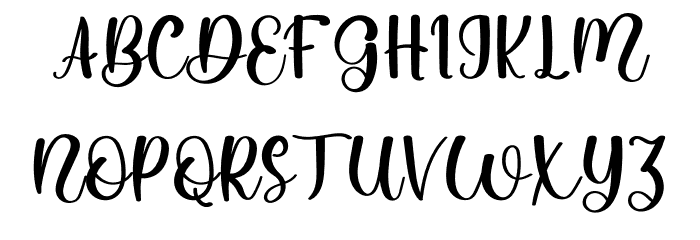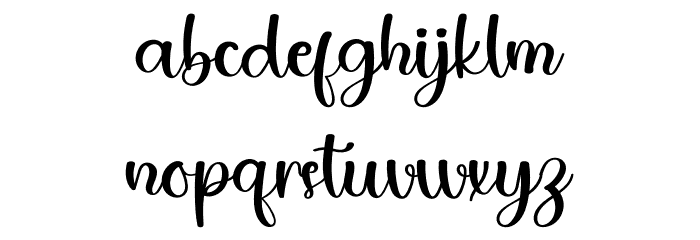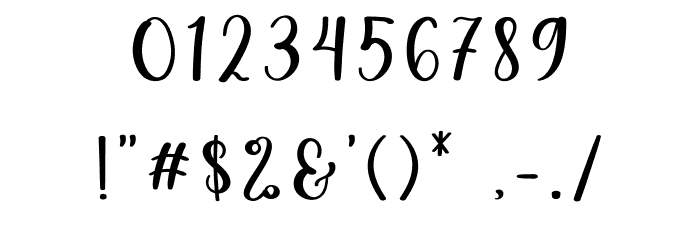
Berry Font
This font features a playful and elegant script style with smooth, flowing curves and a handwritten appearance. The uppercase letters are bold and expressive, while the lowercase letters maintain a consistent, fluid motion. The numerals are clear and easy to read, complementing the overall aesthetic. Special characters are integrated seamlessly, adding versatility to the font. The design is both modern and timeless, making it suitable for a variety of creative projects.
A playful and elegant script font with smooth, flowing curves.
- Proposed Projects: Ideal for wedding invitations, greeting cards, branding, and social media graphics.
- Category: Script
- Use Case: Logos, Invitations, Headlines